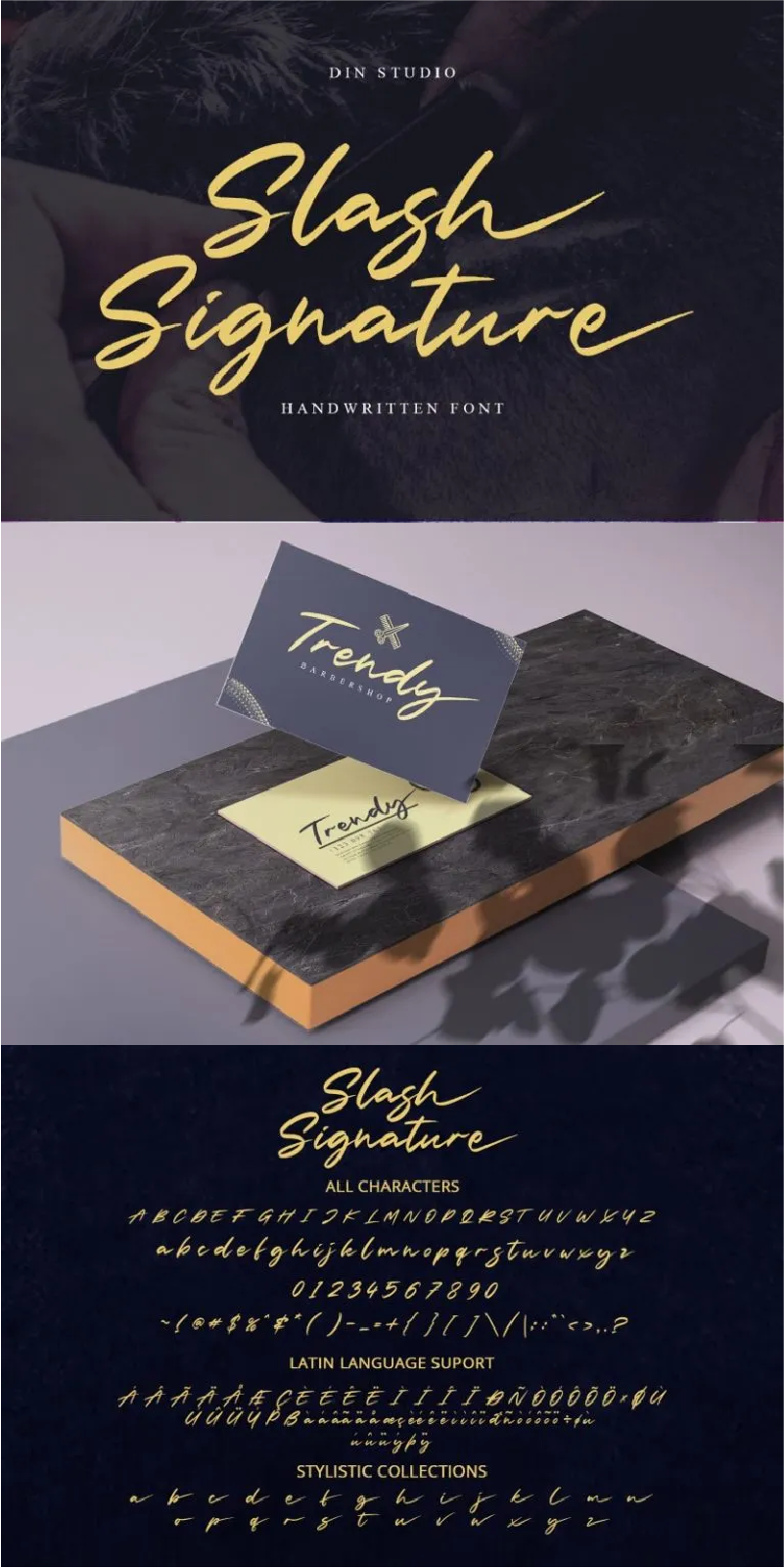
Slash Signature Font
About Slash Signature
Slash Signature is a modern handwritten font. With a classy and natural handwritten style, it brings a classy and beautiful typeface. Slash signature is best used for branding, logotype, invitation, advertisement, and quotes.